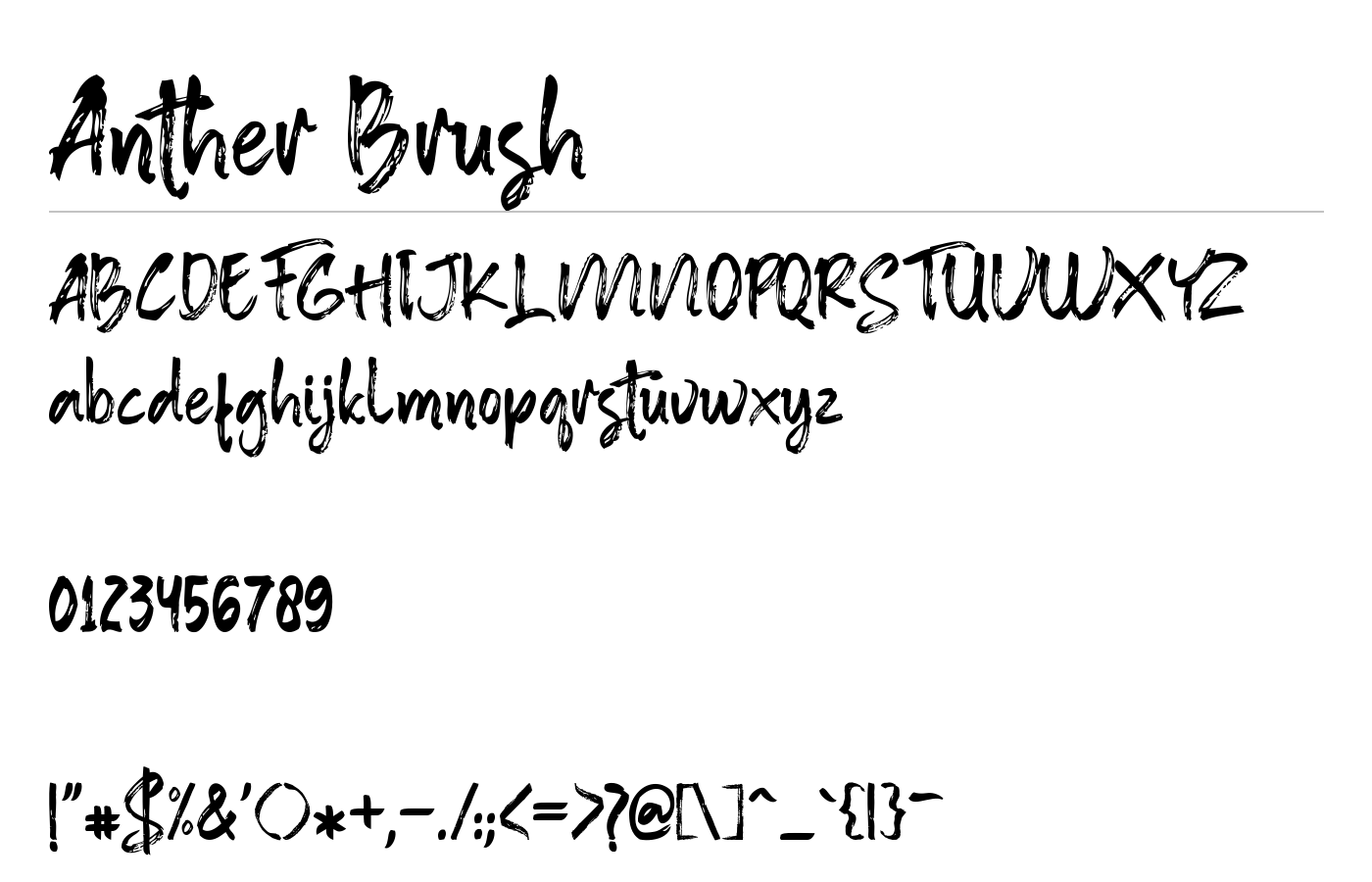
Anther Brush is a lively, hand-painted brush script font with a bold, textured style that captures an energetic, artistic feel. Its uneven strokes and playful imperfections give it a casual, creative personality, making it ideal for projects looking to convey a handmade, expressive touch. This font works best in branding, posters, and creative headlines where a vibrant, personal voice is needed.
Anther Brush Font
About Anther Brush Font